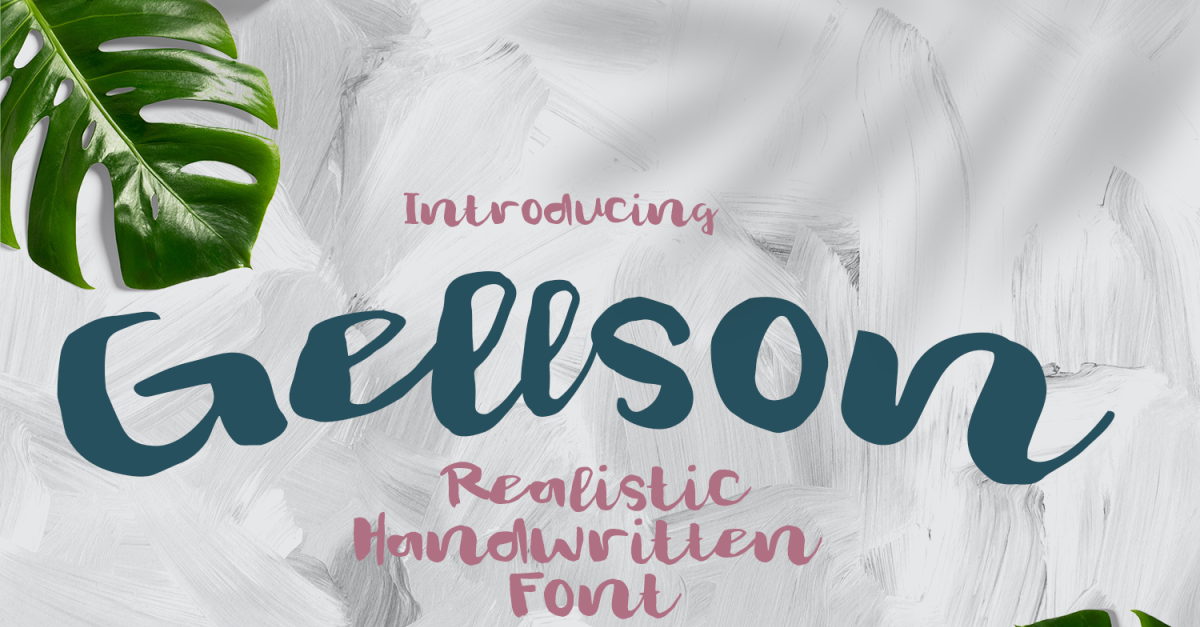
Gelsson - Beautiful Script Font
Really excited to introduce Gelsson is a realistic brush script! Gelsson will be perfect for all your designs project.